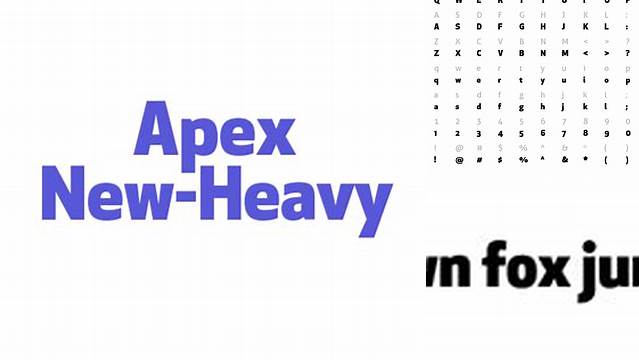
Apex New Heavy Font: Free Download Guide & Alternatives
Are you looking to enhance your design projects with a font that exudes power, modernity, and a touch of futuristic flair? Look no further than the Apex New Heavy font! This typeface has become a favorite among designers and creatives for its bold, impactful presence and versatility across various applications. In this comprehensive guide, we'll dive deep into everything you need to know about Apex New Heavy, including its characteristics, usage, and, most importantly, how to download it for free.
What is Apex New Heavy Font?
Before we get into the specifics of downloading, let's first understand what makes Apex New Heavy so special. This font is a member of the sans-serif family, known for its clean, minimalist lines and lack of serifs (the small strokes at the ends of letters). Apex New Heavy takes these characteristics and amplifies them, resulting in a typeface that is both modern and authoritative.
The boldness of Apex New Heavy is perhaps its most defining feature. The thick strokes of the letters command attention, making it ideal for headlines, titles, and other applications where you need to make a strong statement. Despite its weight, Apex New Heavy maintains a sense of clarity and legibility, ensuring that your message is not only seen but also easily read. This balance between boldness and clarity is what sets Apex New Heavy apart from other heavy fonts, which can sometimes sacrifice readability for visual impact.
Apex New Heavy's design incorporates subtle geometric elements, giving it a slightly futuristic feel. The letterforms are well-proportioned and carefully crafted, resulting in a typeface that is both visually appealing and highly functional. This makes it a versatile choice for a wide range of projects, from branding and advertising to web design and print materials. Its clean lines also make it a great choice for body text, especially in shorter paragraphs or callouts, where its presence can add a touch of sophistication without overwhelming the reader. The font's versatility extends to both digital and print media, ensuring consistency across all your design platforms. Whether you're designing a website, creating a poster, or putting together a presentation, Apex New Heavy can help you achieve a professional and impactful look.
Key Characteristics of Apex New Heavy
To truly appreciate the versatility of Apex New Heavy, it's essential to understand its key characteristics. These features contribute to its unique aesthetic and make it a valuable asset in any designer's toolkit:
- Bold Weight: As the name suggests, Apex New Heavy boasts a significant weight, making it perfect for headlines, titles, and other prominent text elements. This boldness ensures that your message grabs attention and leaves a lasting impression. The heavy strokes of the letters create a strong visual presence, making it ideal for situations where you need to command attention.
- Sans-Serif Design: The absence of serifs gives Apex New Heavy a clean, modern look. This design choice makes it highly legible and suitable for both digital and print applications. Sans-serif fonts are generally considered more contemporary than serif fonts, making Apex New Heavy a perfect choice for projects that aim to convey a modern or futuristic aesthetic.
- Geometric Elements: Subtle geometric shapes are incorporated into the letterforms, adding a touch of sophistication and visual interest. These elements contribute to the font's overall aesthetic appeal and make it stand out from other sans-serif typefaces. The geometric forms provide a sense of structure and balance, enhancing the font's readability and visual harmony.
- Excellent Legibility: Despite its weight, Apex New Heavy maintains excellent legibility, even at smaller sizes. This is crucial for ensuring that your message is easily read and understood, regardless of the context. The careful design of the letterforms ensures that they remain distinct and clear, preventing them from blurring or becoming muddled.
- Versatile Application: Apex New Heavy is suitable for a wide range of design projects, including branding, advertising, web design, and print materials. Its versatility makes it a valuable asset for any designer looking to add a touch of modernity and impact to their work. Whether you're creating a logo, designing a website, or crafting marketing materials, Apex New Heavy can help you achieve a professional and visually appealing result.
Where to Use Apex New Heavy Font
The versatility of Apex New Heavy makes it a fantastic choice for various design projects. Here are some common applications where this font can truly shine:
- Headlines and Titles: This is where Apex New Heavy truly excels. Its bold weight and clean lines make it perfect for grabbing attention and making a strong statement. Whether you're designing a website, creating a poster, or putting together a presentation, Apex New Heavy can help you create impactful headlines that draw the reader in. The font's boldness ensures that your message is seen and remembered.
- Logos and Branding: If you're looking to create a logo that exudes confidence and modernity, Apex New Heavy is an excellent choice. Its strong presence can help your brand stand out from the competition. The font's clean lines and geometric elements also contribute to a professional and sophisticated look, making it ideal for representing a brand that values innovation and clarity.
Apex New Heavy is a powerful and versatile font that can elevate your design projects. While finding a free and legitimate download can be challenging, it's essential to prioritize safety and legality. Explore the safe options discussed in this guide, such as reputable font foundries, font bundles, and free font websites with caution. And if you can't find Apex New Heavy for free, consider the excellent alternatives available that offer a similar aesthetic. By making informed choices, you can enhance your designs with beautiful fonts while respecting copyright laws and supporting the design community. Remember, a great font is an investment in your creative work, so choose wisely and ethically!